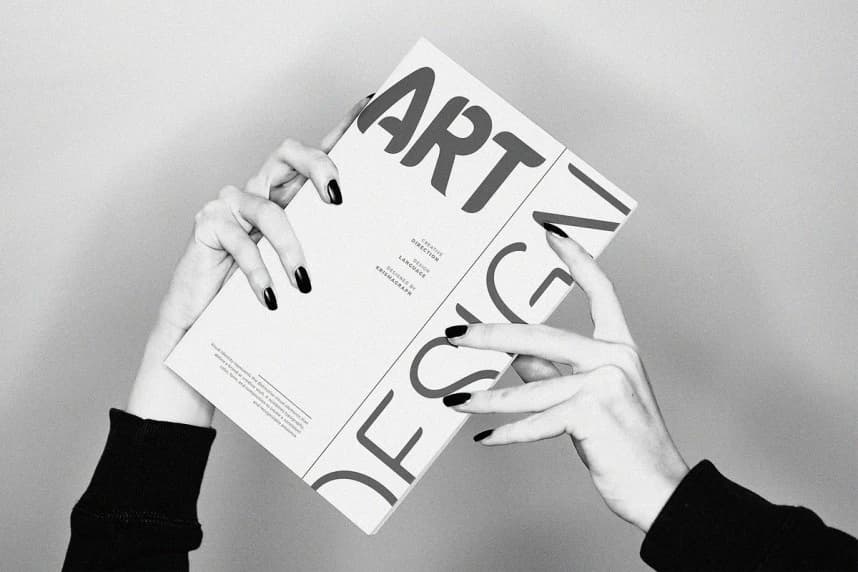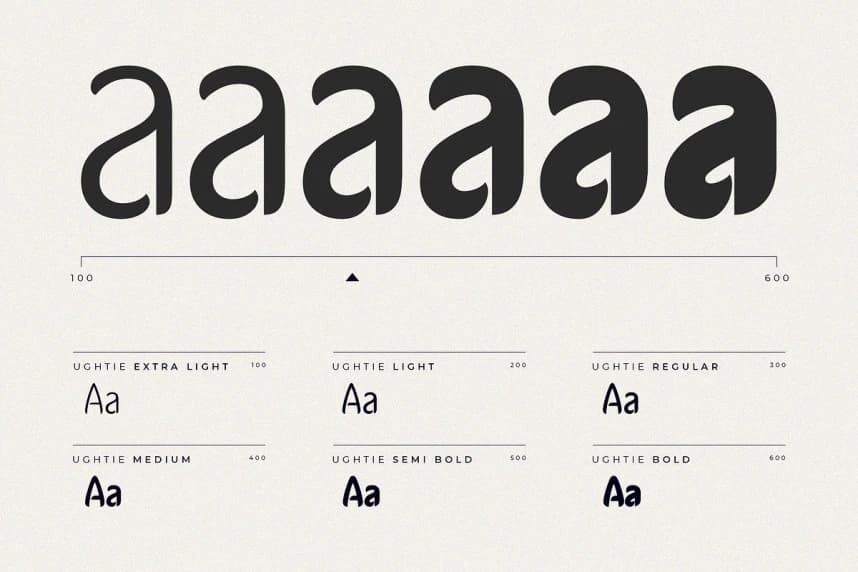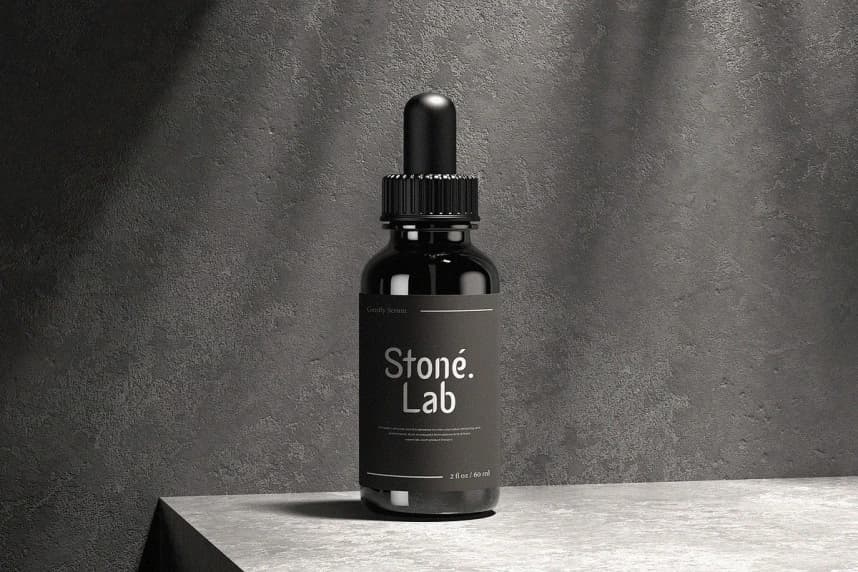
Ughtie Font
Ughtie Font is a contemporary rounded display sans-serif family that strikes a refined balance between geometric structure and warm approachability. With 6 distinct weights — from light to extra bold — it delivers typographic flexibility for complex design systems without sacrificing personality.